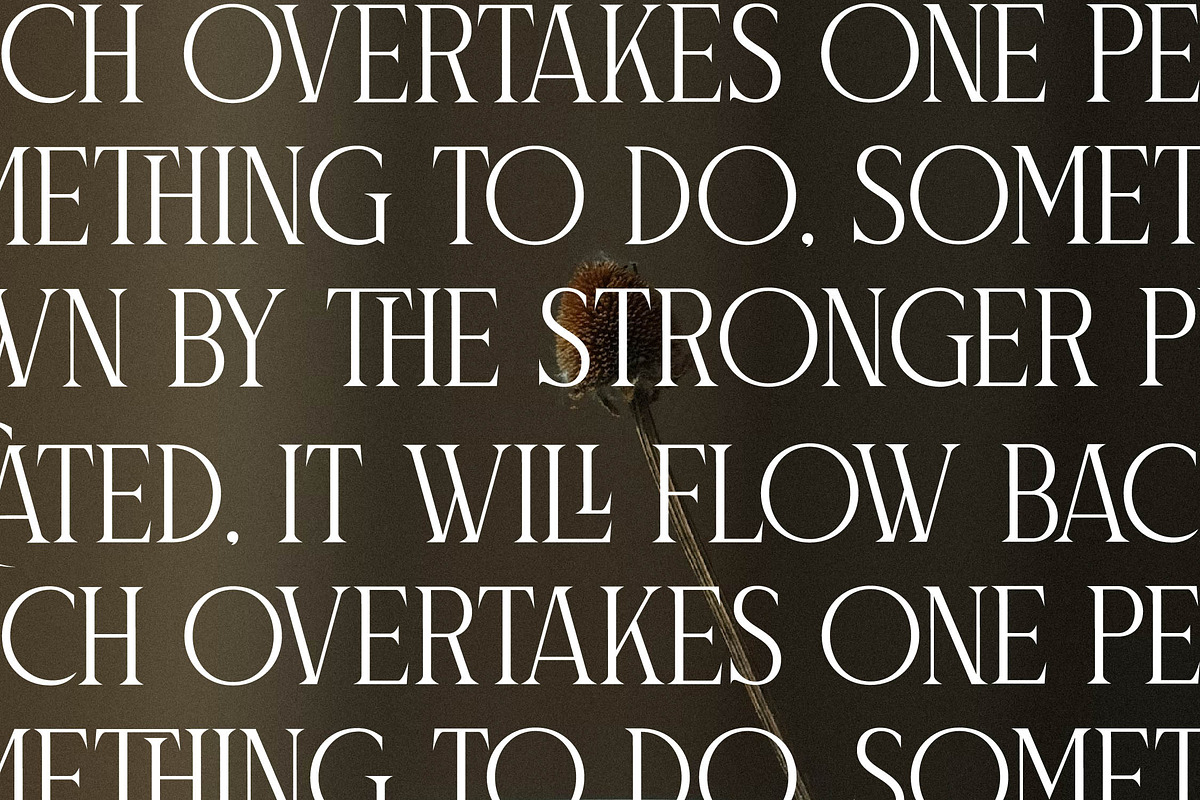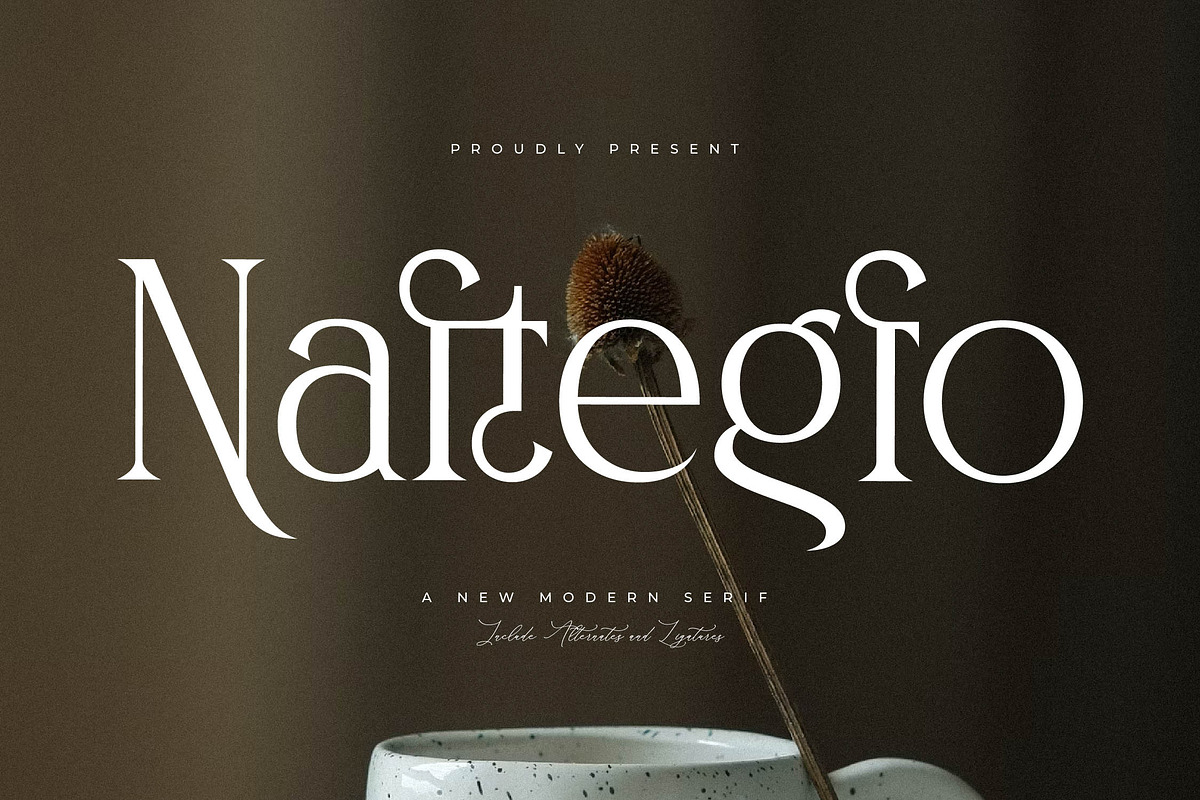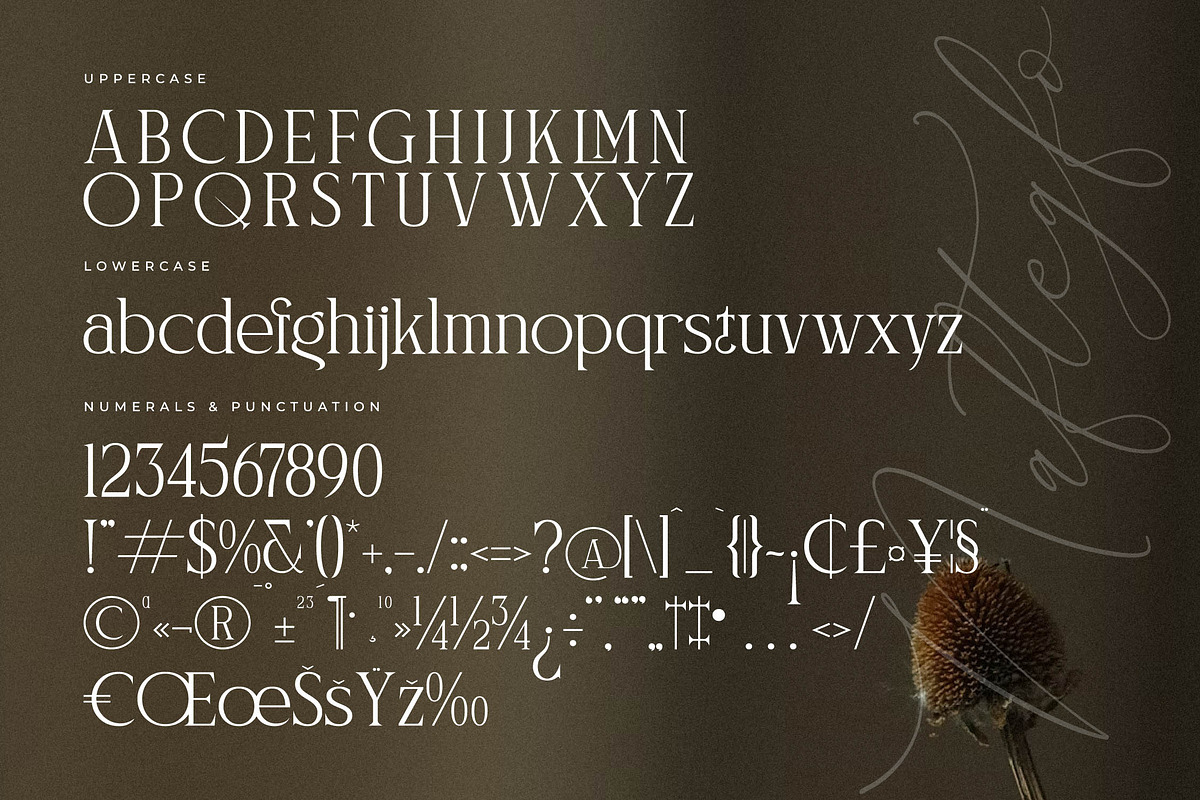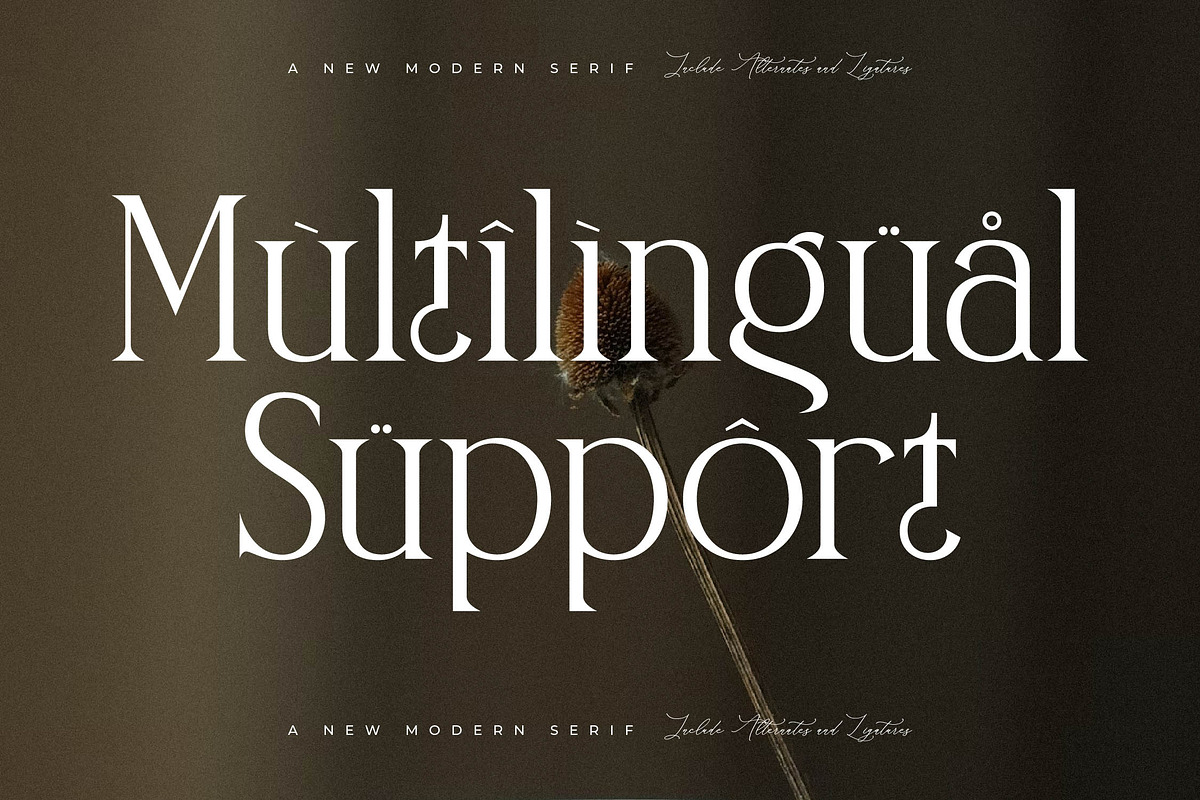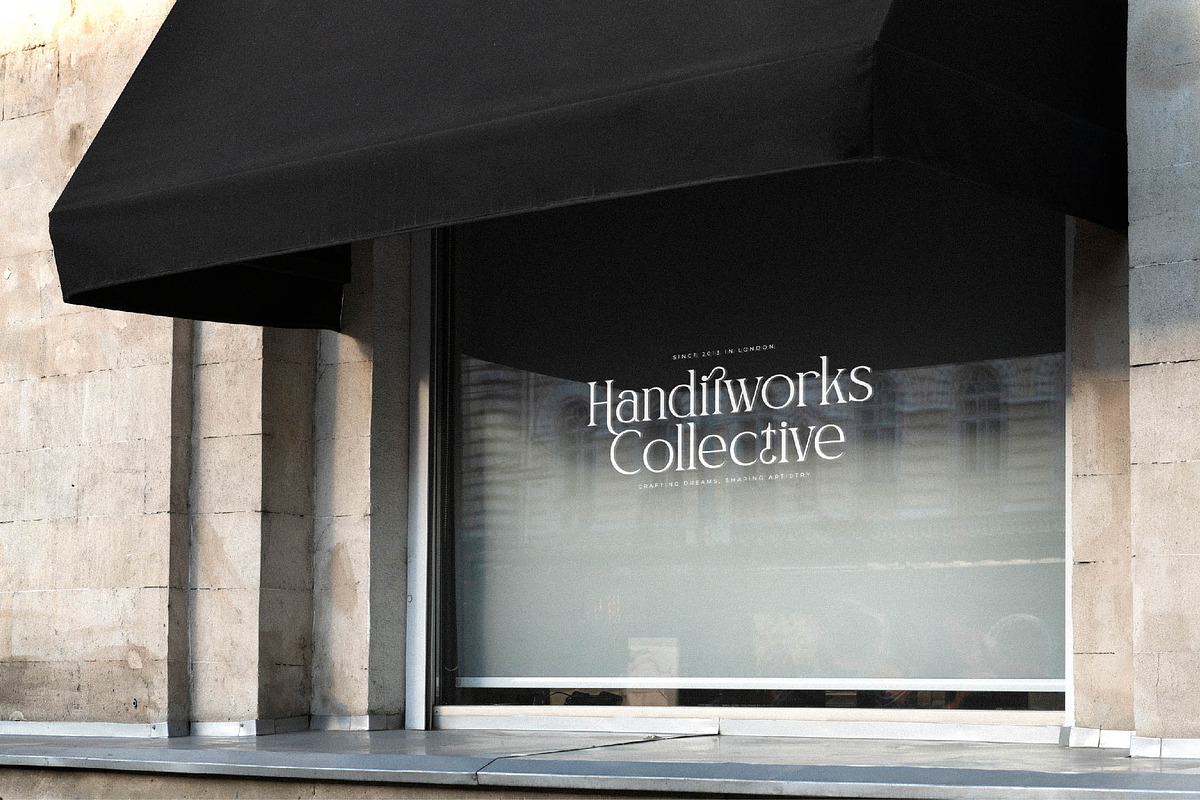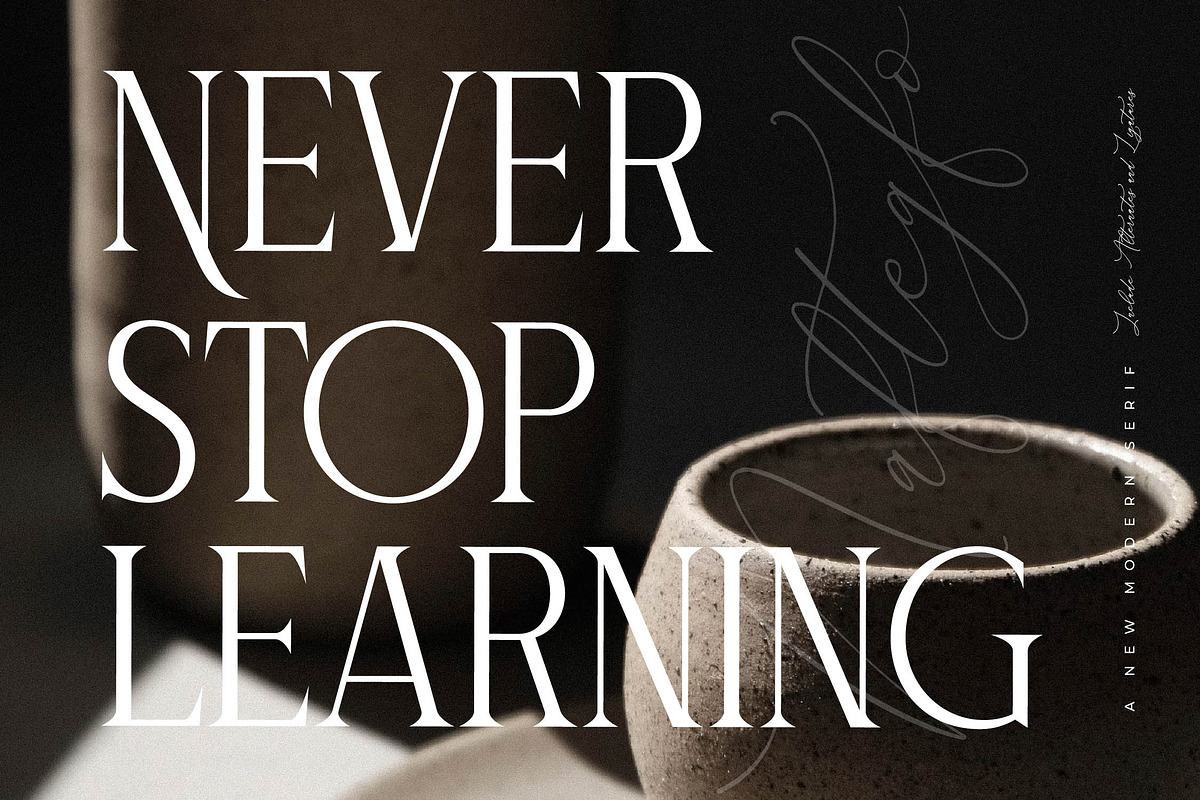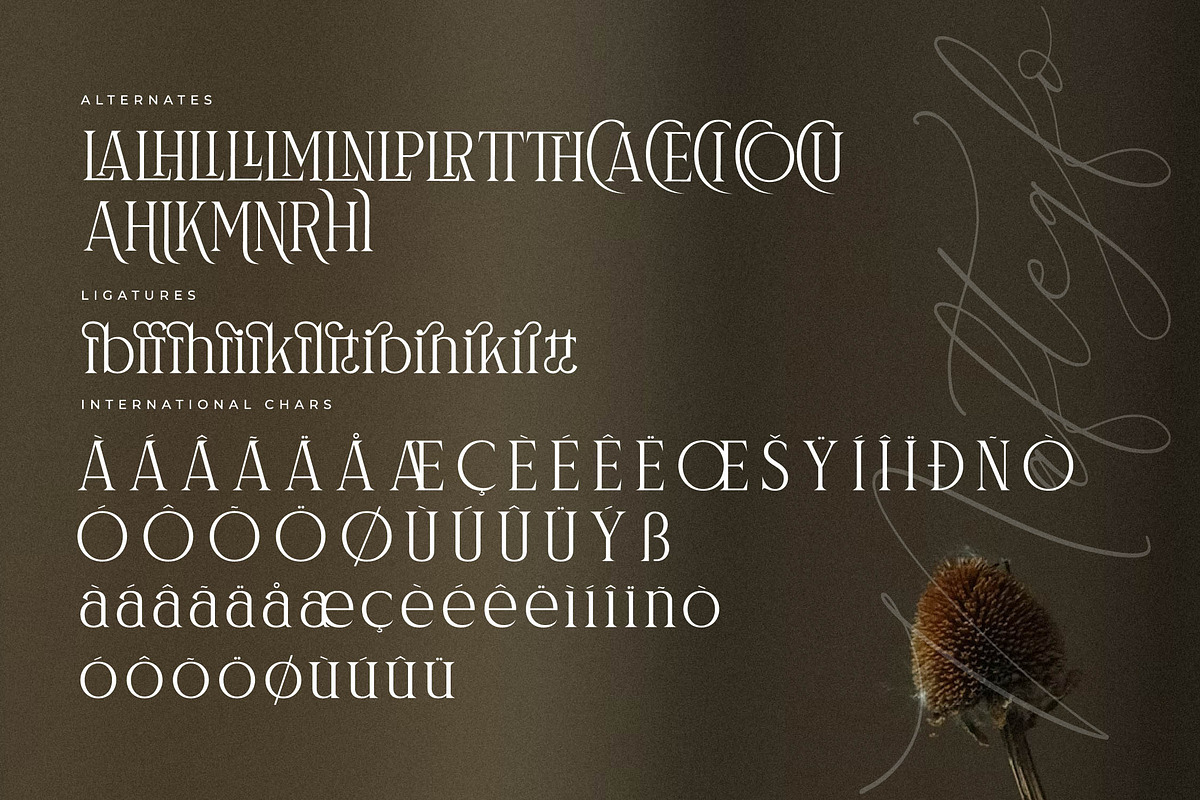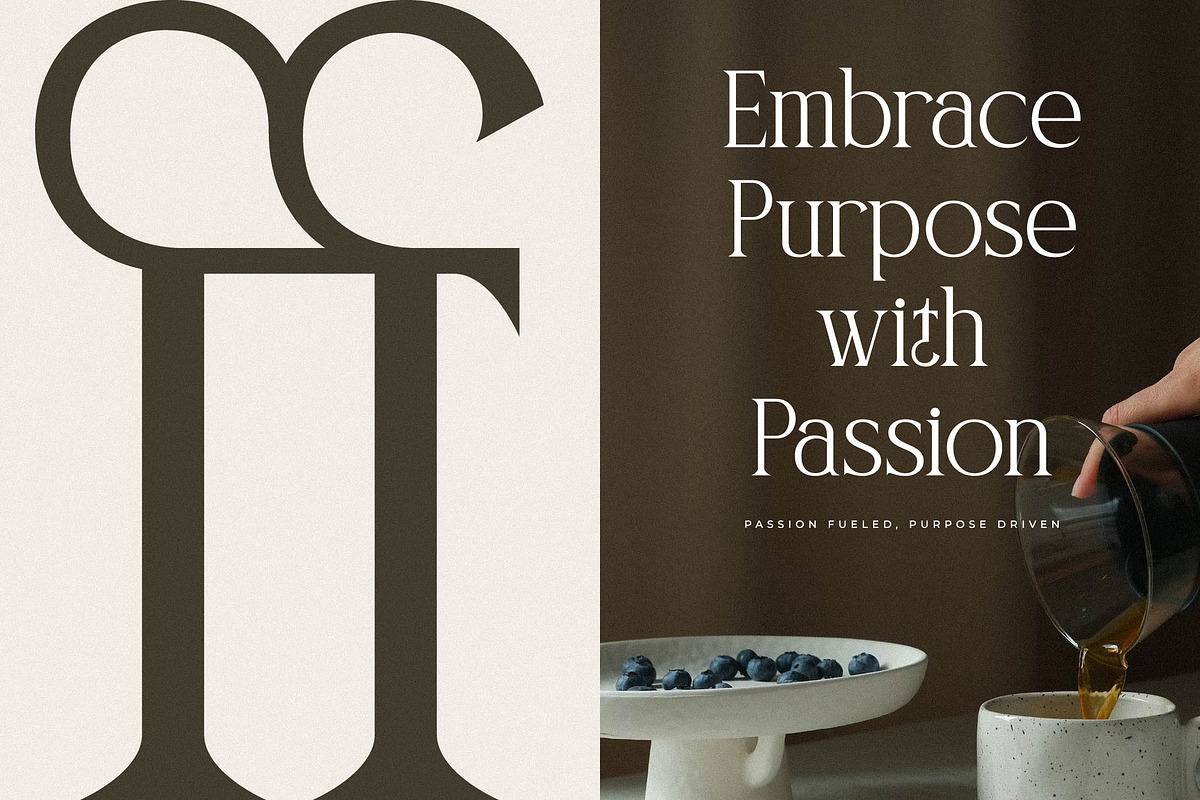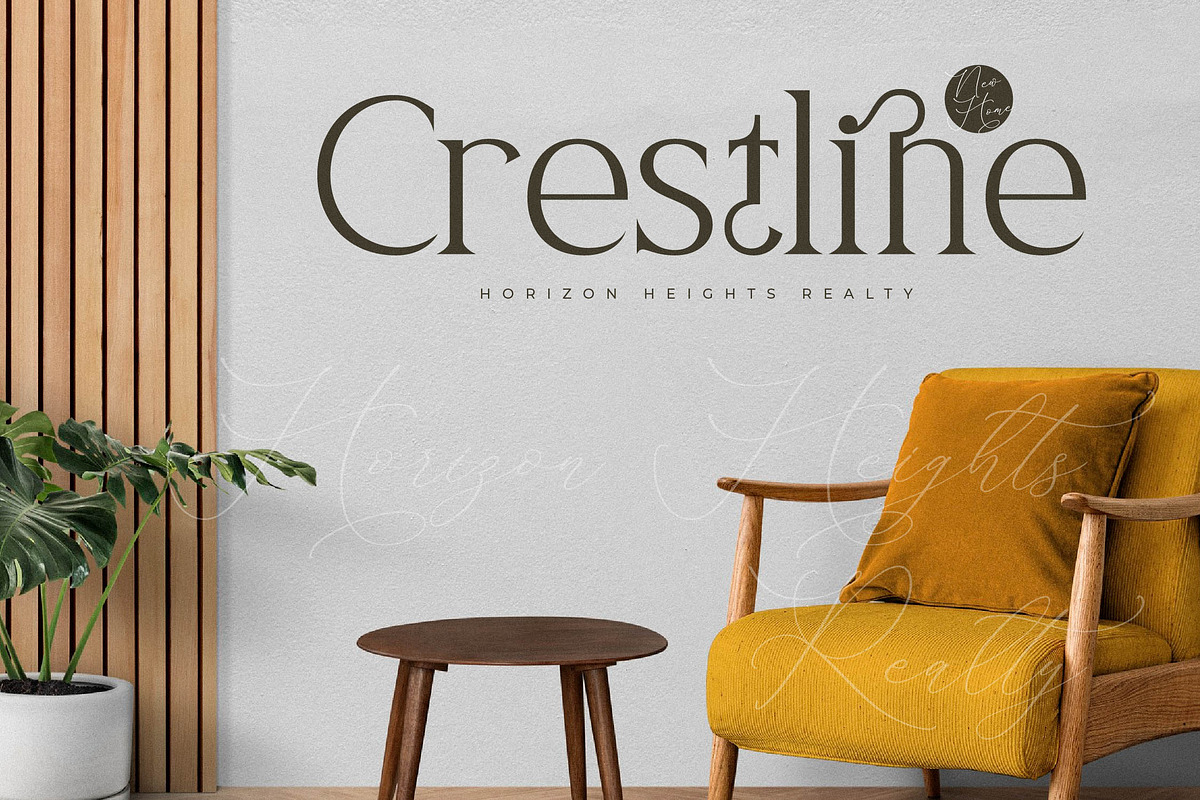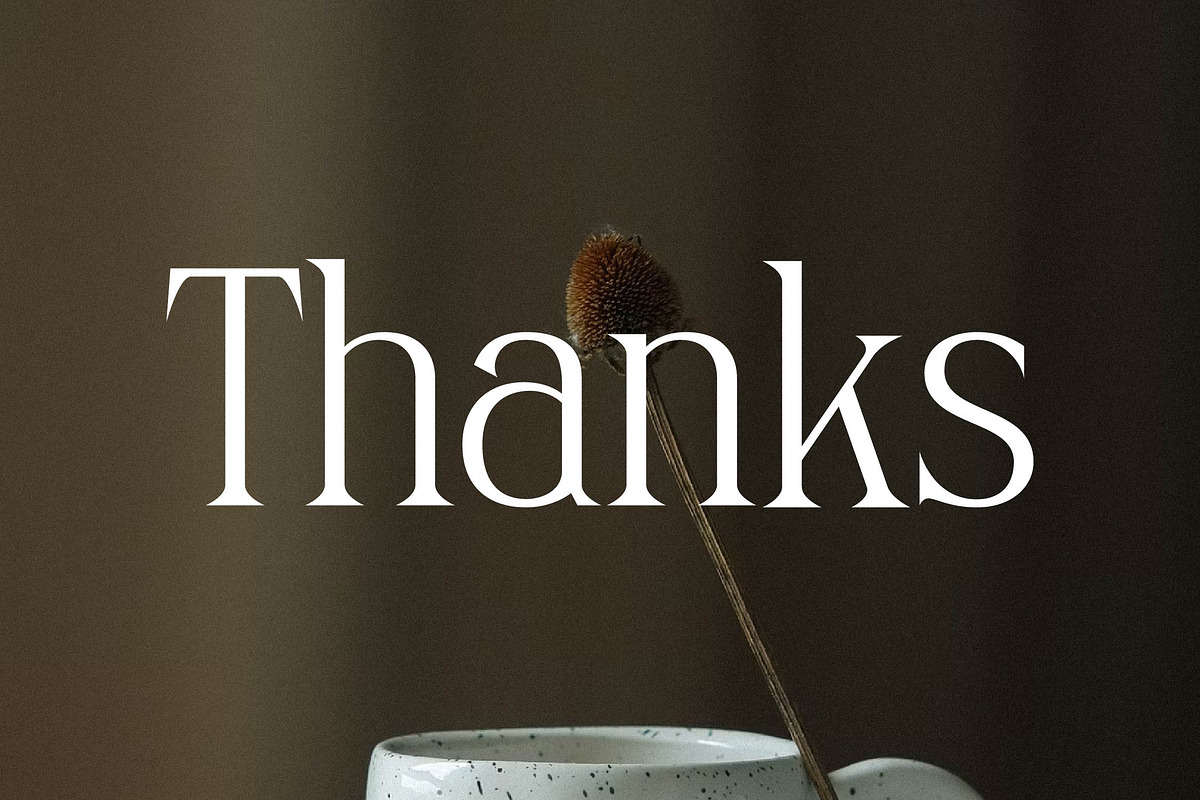
Naftegfo A New Modern Serif
Proudly present Naftegfo Typeface , created by Storytype, A serif modern and classic typeface that has own unique style & modern look. This typeface is perfect for an elegant & luxury logo, book or movie title design, fashion brand, magazine, clothes, lettering, quotes, and so much more.